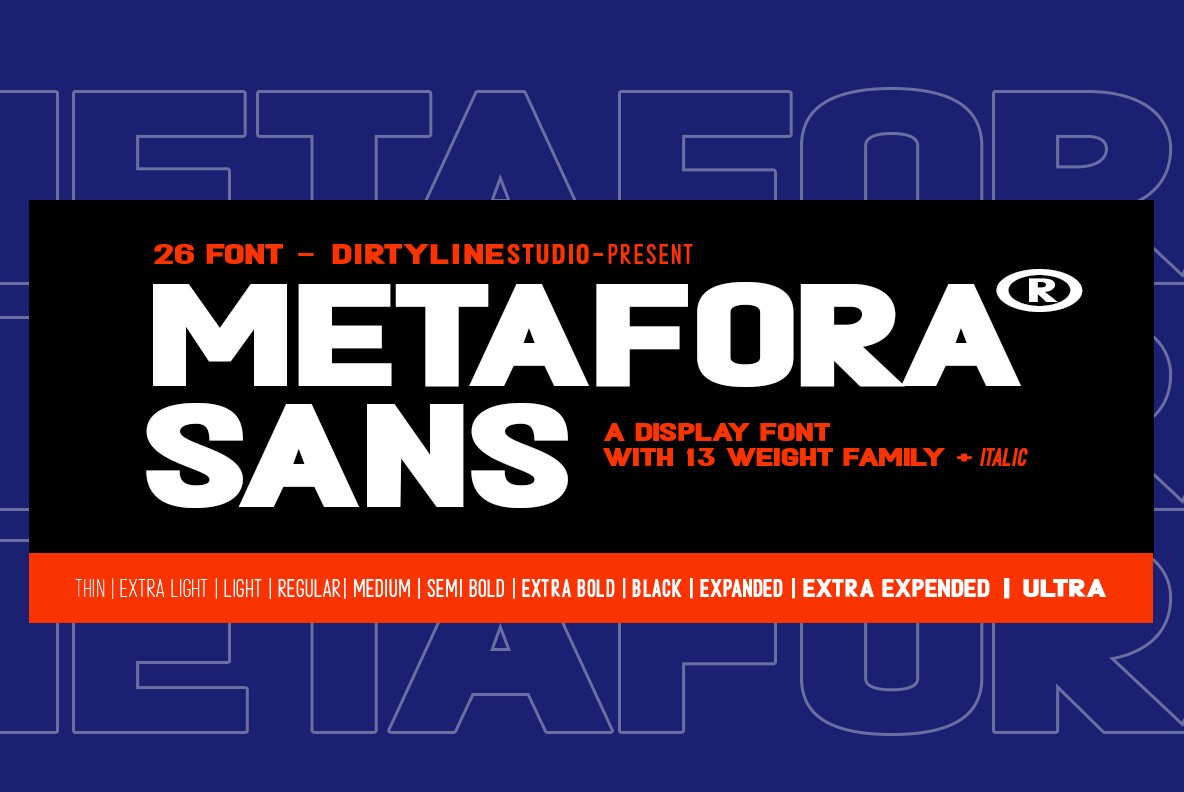
Metafora Sans Font
Metafora Sans Font is perfect for philosophical publications, academic research materials, intellectual magazines, contemporary art museums, literary journals, educational platforms, thought leadership content, cultural criticism websites, scholarly presentations, and conceptual design projects.
What makes Metafora Sans Font so exciting is its profound ability to embody abstract thinking and intellectual depth through sophisticated typographic expression that transcends literal communication. This thoughtfully conceptualized typeface features nuanced letterforms with subtle philosophical implications and carefully balanced proportions that immediately convey intellectual sophistication and conceptual clarity. The font's cerebral construction and contemplative aesthetic create an instant sense of scholarly gravitas and analytical precision, making it ideal for projects that need to communicate complex ideas, theoretical frameworks, and abstract concepts to audiences who appreciate intellectual rigor and philosophical depth.
The Metafora Sans Font family typically includes comprehensive weight variations and intellectual styles, often featuring regular, medium, and bold weights along with contemplative italic versions. Philosophical font collections frequently offer specialized character sets including academic symbols, critical notation marks, and theoretical punctuation that support complex scholarly documentation and enhance the intellectual communication experience across diverse academic disciplines.
The intellectual depth of Metafora Sans Font makes it particularly effective for educational contexts where facilitating deep thinking and critical analysis are essential for meaningful learning outcomes. Academic publishers and educational technology developers will find this font especially valuable for materials that must support complex reasoning processes and theoretical exploration.
What distinguishes Metafora Sans Font is its remarkable ability to make abstract concepts more accessible while maintaining the intellectual integrity required for serious scholarly communication. This unique characteristic makes it suitable for bridging academic rigor with public intellectual engagement.
Professional designers appreciate that Metafora Sans Font brings invaluable intellectual credibility to projects across industries including education, publishing, cultural institutions, and research organizations. Its philosophical character and academic appeal make it essential for communications requiring immediate recognition of scholarly authority and conceptual sophistication.
The systematic thinking behind Metafora Sans Font ensures optimal performance across complex intellectual communication challenges while maintaining accessibility for diverse learning contexts.